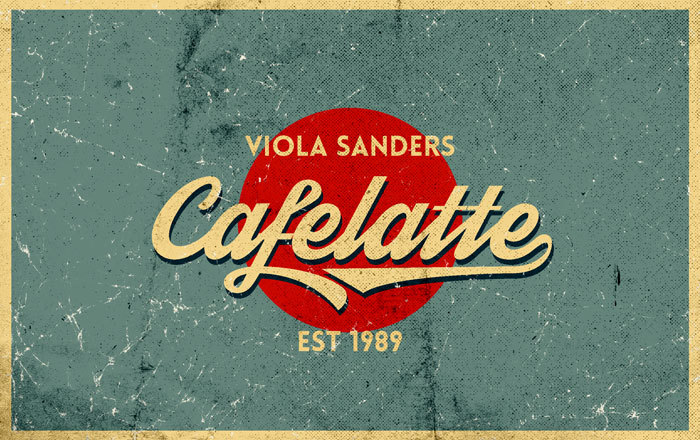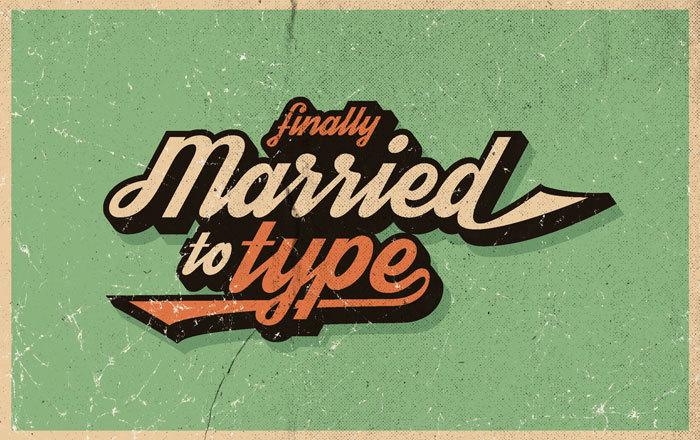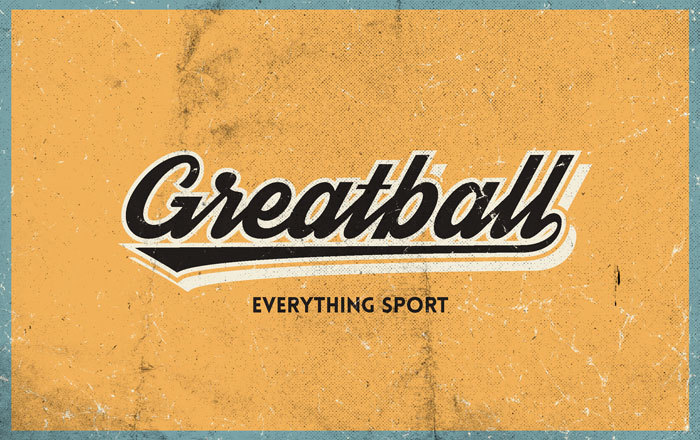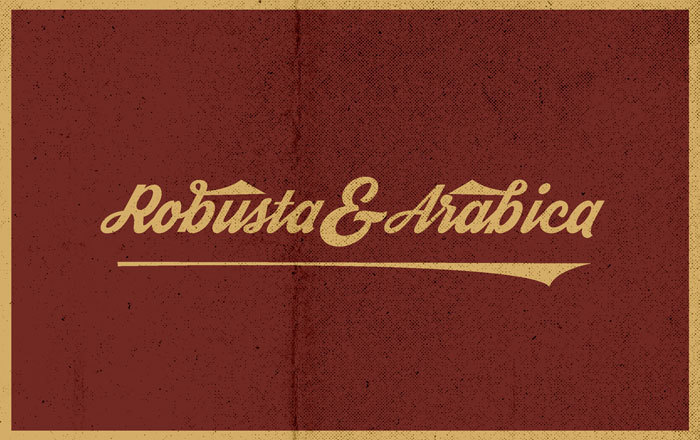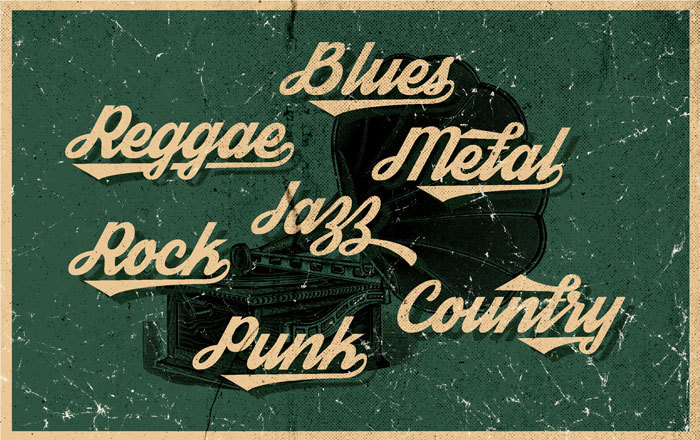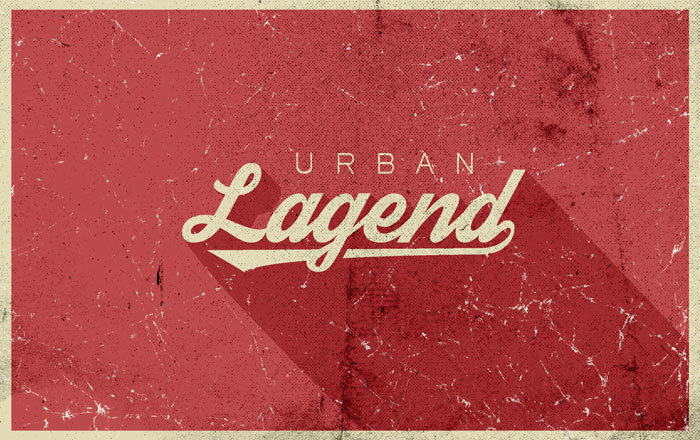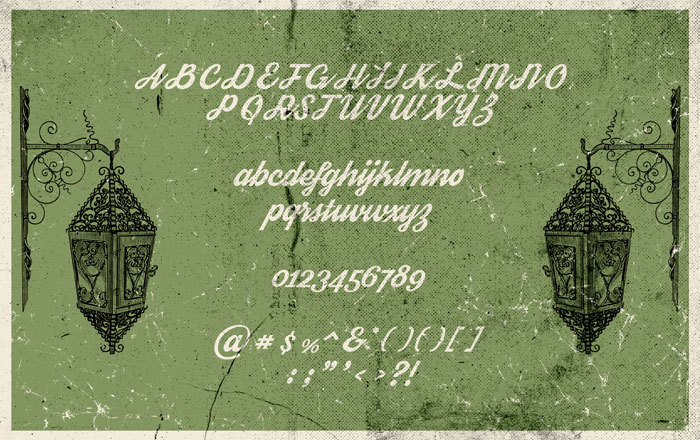
Streetwear – Free Retro Font
This retro style custom font is from Artimasa. Streetwear is bold and stylish retro inspired script typeface suitable for logo, poster, branding, packaging and t-shirt design. It looks like 1960s and 70s fashion and sport related typeface, unique and fun at the same time. You can access Streetwear’s alternate characters by using OpenType savvy program such as Adobe Illustrator and InDesign.